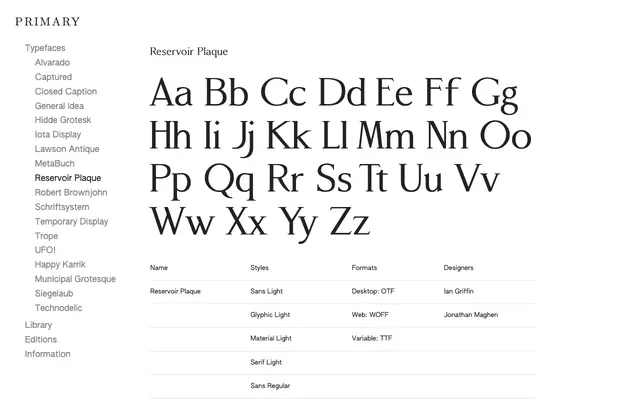
Reservoir Plaque
A variable typeface drawn from the bronze memorial plaques of the Hollywood Reservoir and Mulholland Dam, completed in 1924, offering four distinct lettering styles across two variable axes.
Designed by Ian Griffin and Jonathan Maghen, the family captures the inscriptional lettering found on the memorial plaques of the Hollywood Reservoir in Los Angeles. Two variable axes control weight from Light to Bold and style from sans to serif, with four named interpolation zones: Sans, Glyphic, Material and Serif. The 515-glyph set includes lining and old-style figures, ligatures, swashes and stylistic alternates, and the desktop OTF format is available free for non-profit and cultural projects.
The family spans four stylistic axes including sans, glyphic, material and serif variants derived from inscribed memorial plaque lettering, placing it firmly in the display/glyphic category with strong lapidary and engraved influences.